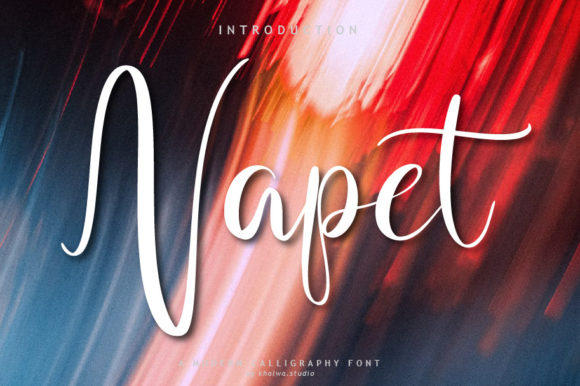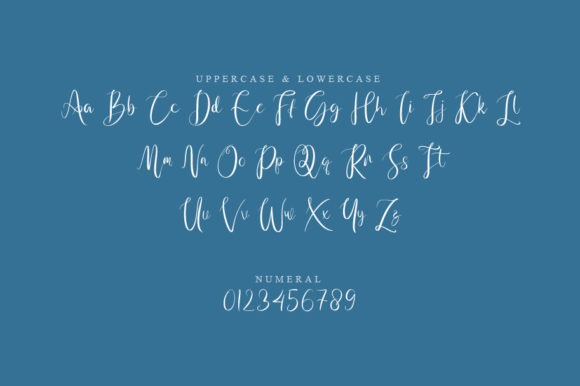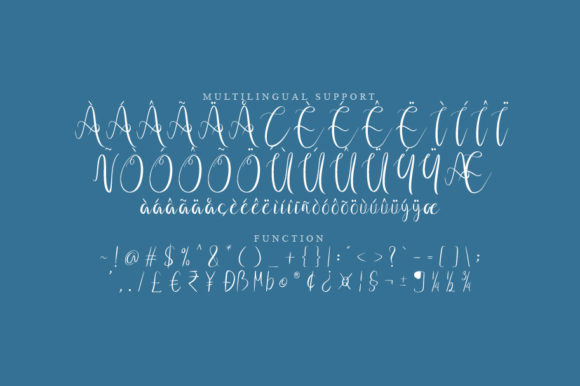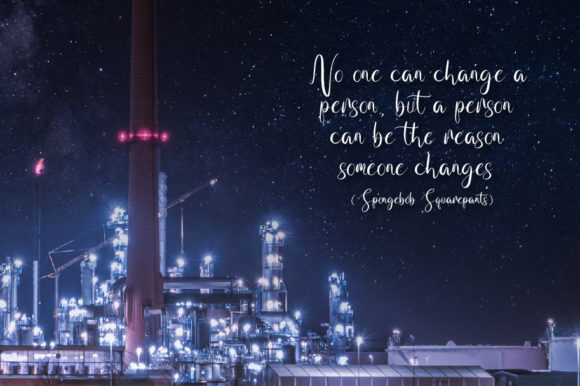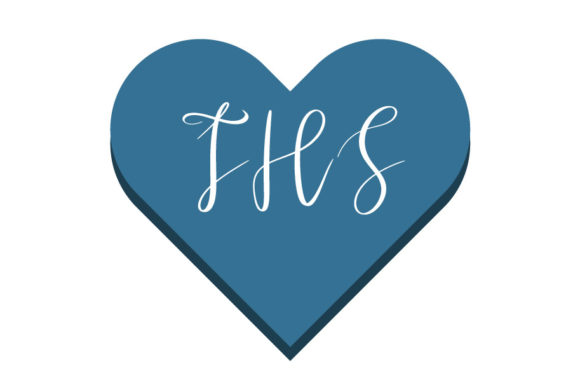
Napet Script Font
About Napet Script Font
Napet Script is a charming and timeless handwritten font that possesses an enduring beauty. Its elegant and carefully crafted letterforms make it an excellent choice for a variety of design projects, particularly those aiming to captivate and engage audiences.
When it comes to logos, Napet Script offers a distinct and memorable visual identity. Its unique and artistic touch lends an air of authenticity and craftsmanship, making it an ideal choice for businesses and brands seeking to stand out with an eye-catching and captivating logo design.
For branding purposes, Napet Script’s timeless quality can help establish a strong and lasting brand image. Its versatile nature allows it to adapt to different industries and styles, from vintage and classic to modern and chic. Whether applied to packaging, stationery, or promotional materials, Napet Script adds a touch of elegance and charm that resonates with customers.
Quotes and inspirational messages come to life with Napet Script’s individualistic letterforms. The font’s nuanced details and handcrafted appearance enhance the emotional impact of the words, making them more relatable and inspiring. Whether used on social media graphics, posters, or merchandise, Napet Script elevates the messaging and draws viewers’ attention.
Napet Script’s handwritten quality makes it a perfect match for personalized designs. Wedding invitations, greeting cards, and event announcements gain a sense of intimacy and warmth when adorned with the font’s charming characters. Its ability to convey emotions and sentiments makes it a go-to choice for special occasions.
Furthermore, the font’s versatility extends to a wide range of creative projects, such as book covers, editorial layouts, and decorative art. Its timeless appeal and artistic flair contribute to the overall aesthetic and visual impact of the design, making it an indispensable tool for designers seeking to create visually captivating compositions.
Incorporating Napet Script into your design toolkit allows you to infuse your projects with a touch of elegance and artistry. Its unique and beautiful letterforms bring depth and character to various applications, from logos and branding to quotes and personal invitations. With Napet Script, your designs can truly come alive and leave a lasting impression on your audience.